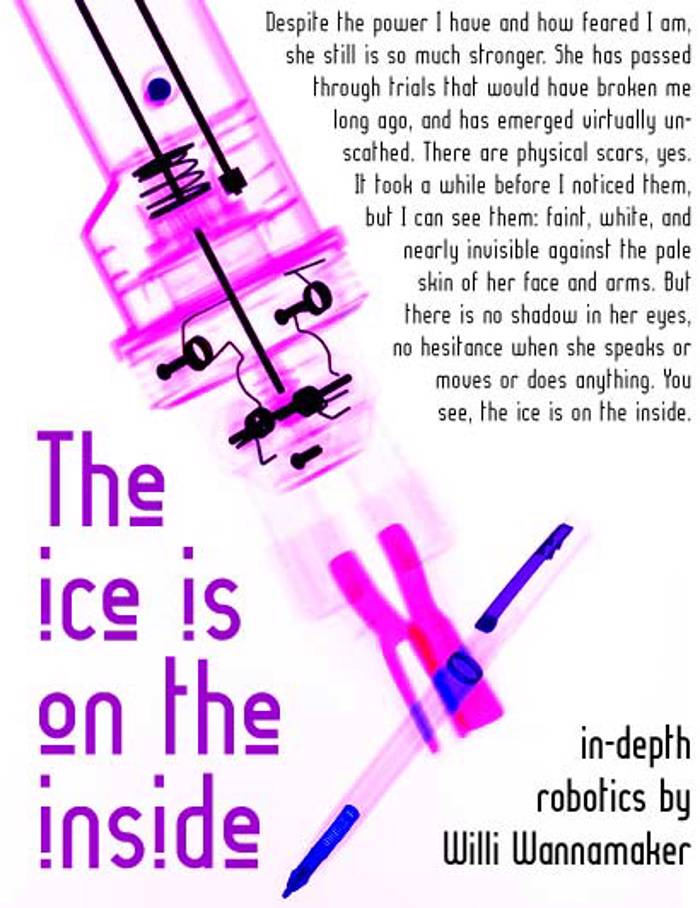
Lady Ice Revisited Font
Upper Regular Style
Lady Ice Revisited is a tall, elegant condensed display font — frosty, narrow letterforms in Regular and Upper styles. Made for fashion branding, winter designs, and refined headlines. Full alphabet and digits in both styles.